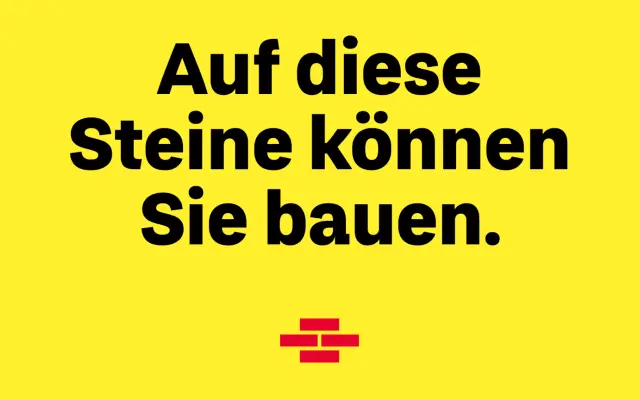
Schwäbisch Hall
Character Type · 2021
A custom neo-grotesque for Bausparkasse Schwäbisch Hall, blending slightly curved diagonals with DIN-inspired straight strokes to balance warmth and technical precision.
Designed by Character Type in partnership with branding agency Strichpunkt for Germany's largest home loan and savings bank, the typeface family known internally as 'Fuchs' responds to a brand brief built around 'Heimat' and 'Digital'. Slightly curved diagonals introduce a calligraphic, human quality, while DIN-inspired straight elements lend technical rigour and stretch the rounder letters. Each of the eight styles carries around 700 glyphs including full European diacritics, small caps and arrows; oblique forms serve as the primary slanted variant, with true italics reserved as a backup reference to the wordmark.
Classified by the foundry as Neo-Grotesque; the design blends rounded calligraphic diagonals with DIN-inspired straight elements, placing it firmly in the neo-grotesque tradition with a humanist inflection.